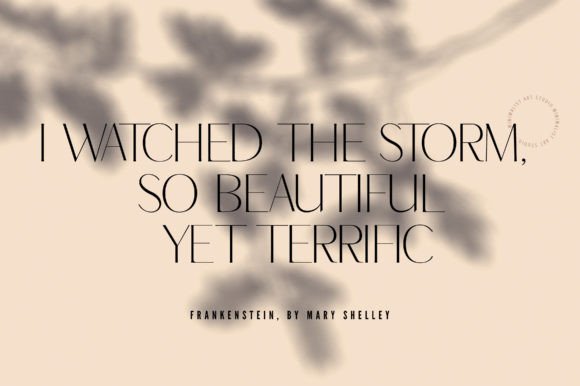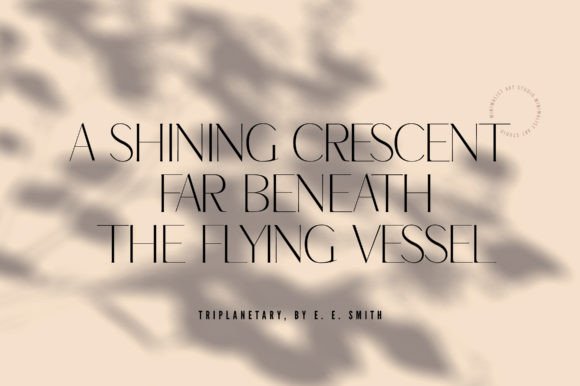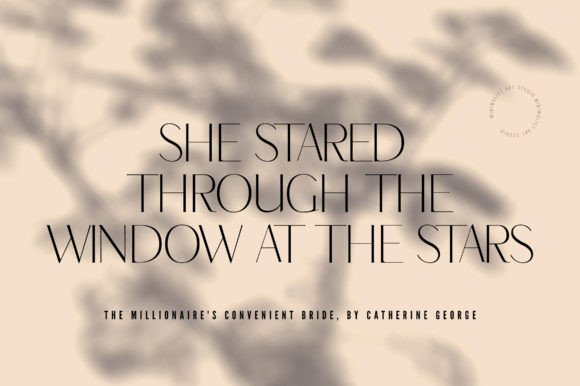
Introduction to Levon Font Font
Fonts play a crucial role in design, and the Levon Font font is a typeface that brings both character and versatility to any project. Whether you’re working on a branding project, a website, or a print design, the Levon Font font offers a unique style that can elevate your work.
Levon is an elegant and chic sans-serif font that is perfect for modern and minimalist design projects.
This font features a sleek and sophisticated look that is sure to elevate any design to a new level of sophistication You can use this versatile font for branding, marketing, web, and print design.
Key Features of Levon Font Font
Why Choose Levon Font Font?
The Levon Font font is more than just a typeface – it’s a design tool that helps you communicate your message with style and clarity. Its unique character set and versatile design make it suitable for a wide range of applications, from elegant invitations to bold headlines.
With its carefully crafted letterforms and balanced proportions, the Levon Font font ensures readability and visual appeal across all mediums.
What makes Levon Font font special?
The Levon Font font stands out with its unique design, exceptional readability, and versatility across various design applications.